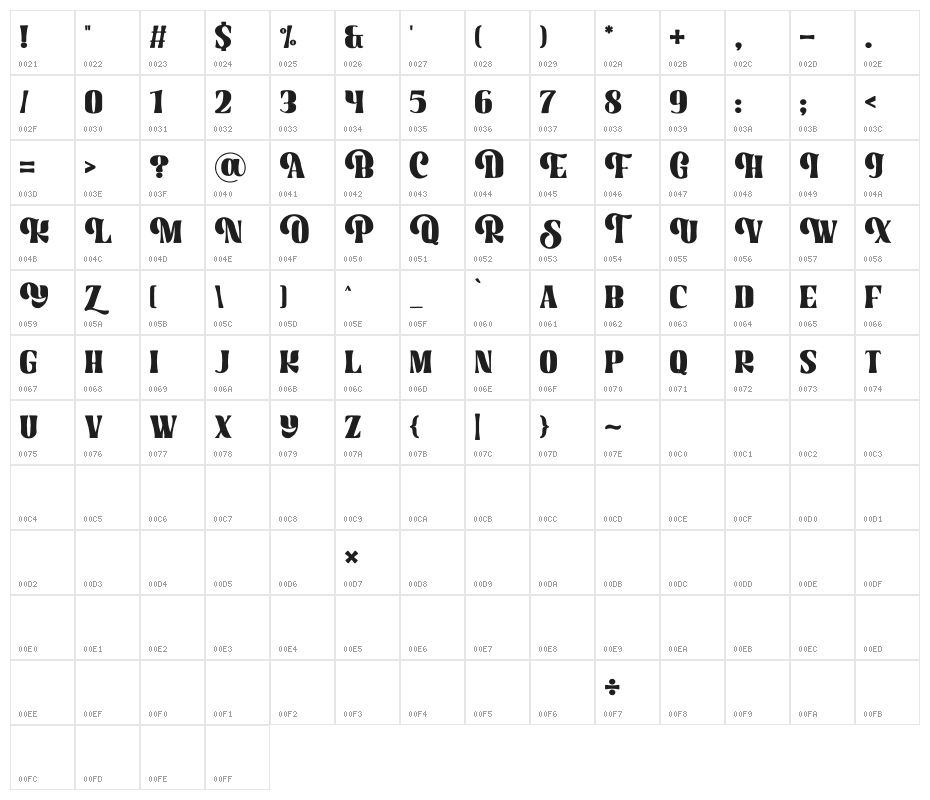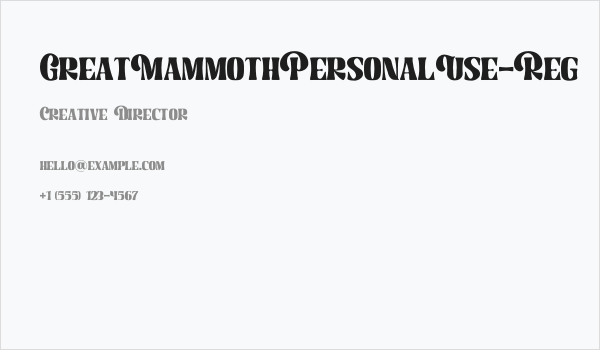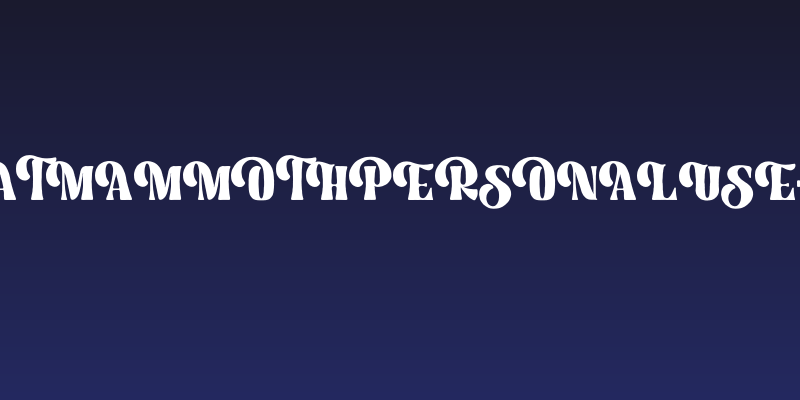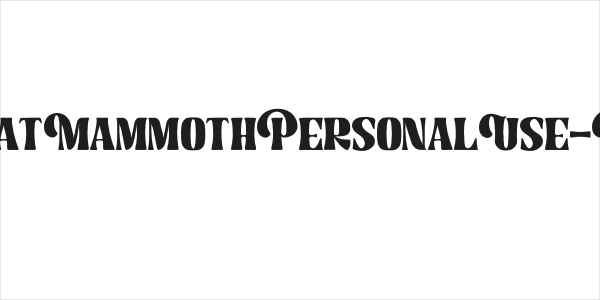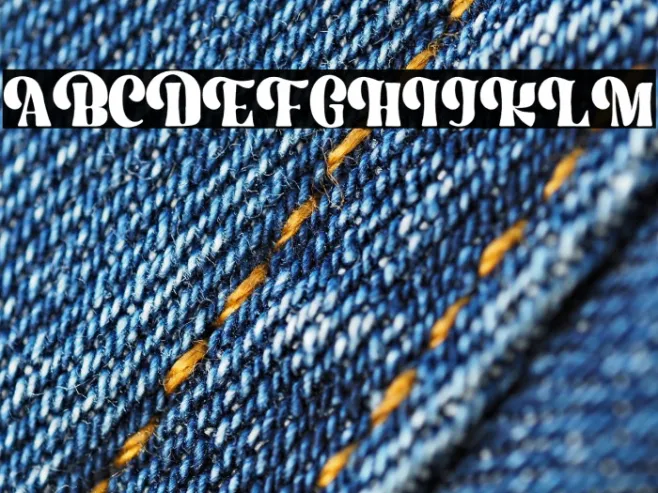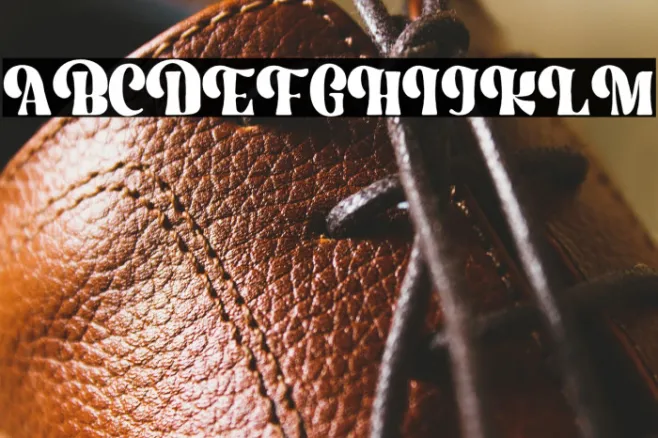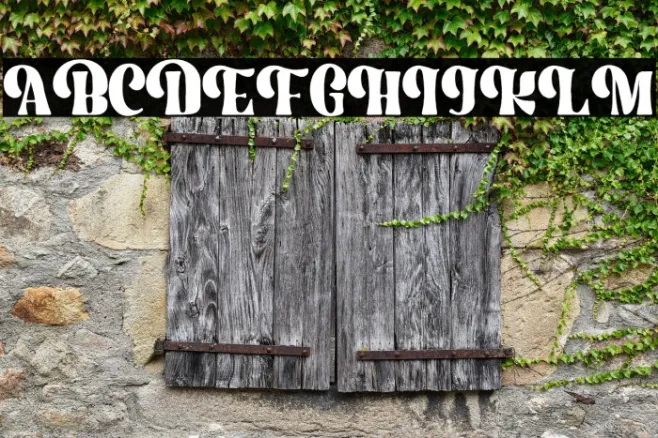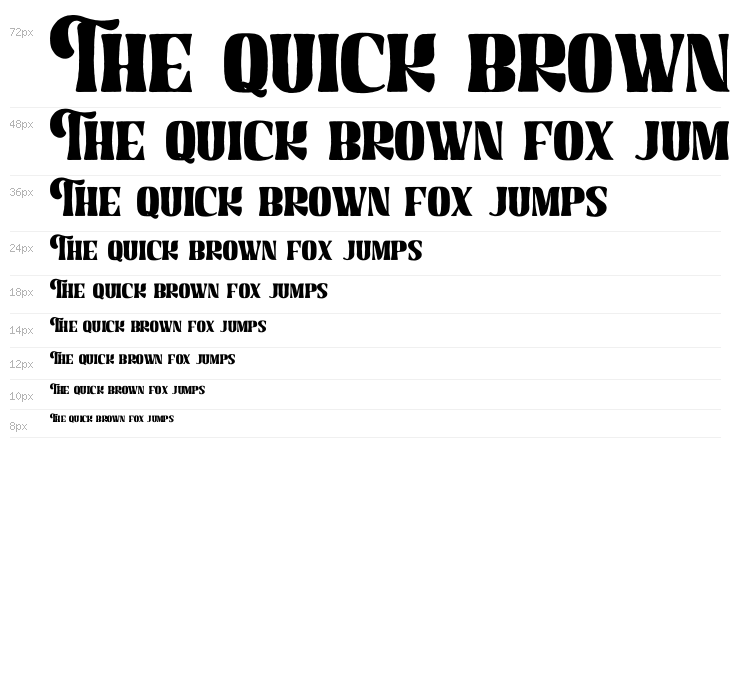
GreatMammothPersonalUse-Reg Font
GreatMammothPersonalUse-Reg Description
This font features a bold and decorative style with a unique flair. The uppercase letters are characterized by thick, rounded strokes with playful curves and flourishes, giving it a whimsical and eye-catching appearance. The lowercase letters maintain the same boldness, with slightly more subtle curves, ensuring readability while retaining the decorative essence. The numbers are equally bold and consistent with the overall style, making them stand out. Special characters are designed to match the playful and bold nature of the font, making it suitable for creative and artistic projects. The font's overall look is both modern and vintage, combining classic elements with a contemporary twist.
| Overall Style | Modern, Vintage |
| Proposed Projects | Ideal for posters, logos, branding, and any project requiring a bold, artistic touch. |